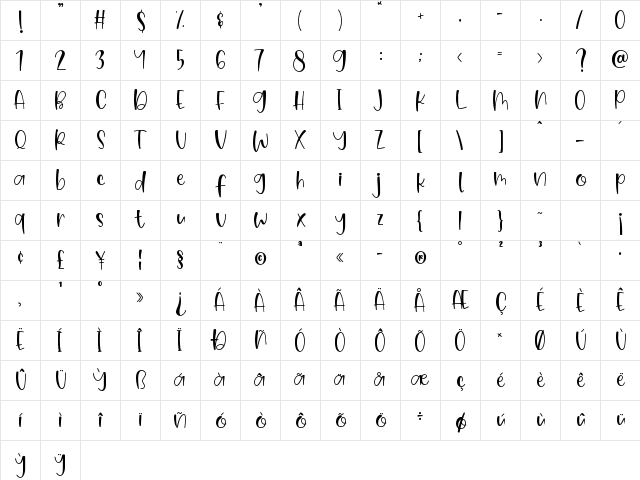
Cutie Brown Regular
Foundry: Dm Letter Studio
Designer: Dimas Prasetyo
Design Context for Cutie Brown
Cutie Brown is a composed and adaptable typeface that performs quietly and consistently across a wide range of design contexts.